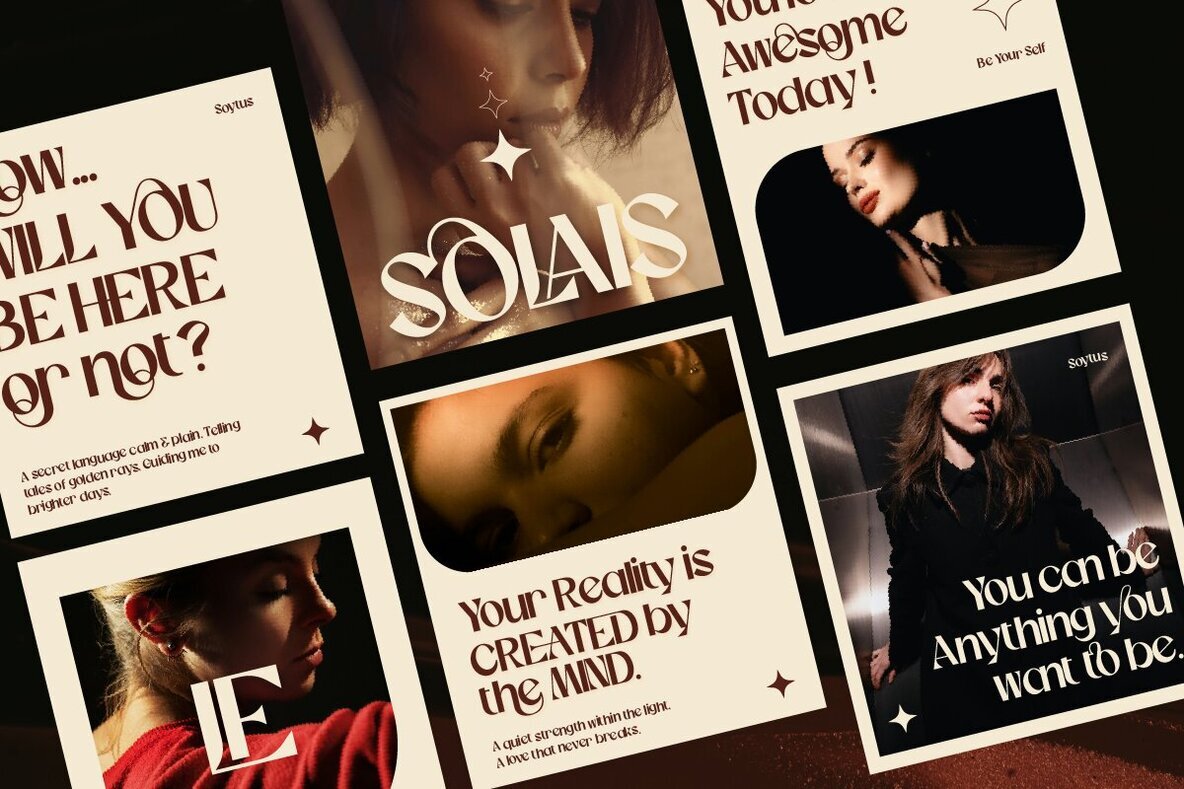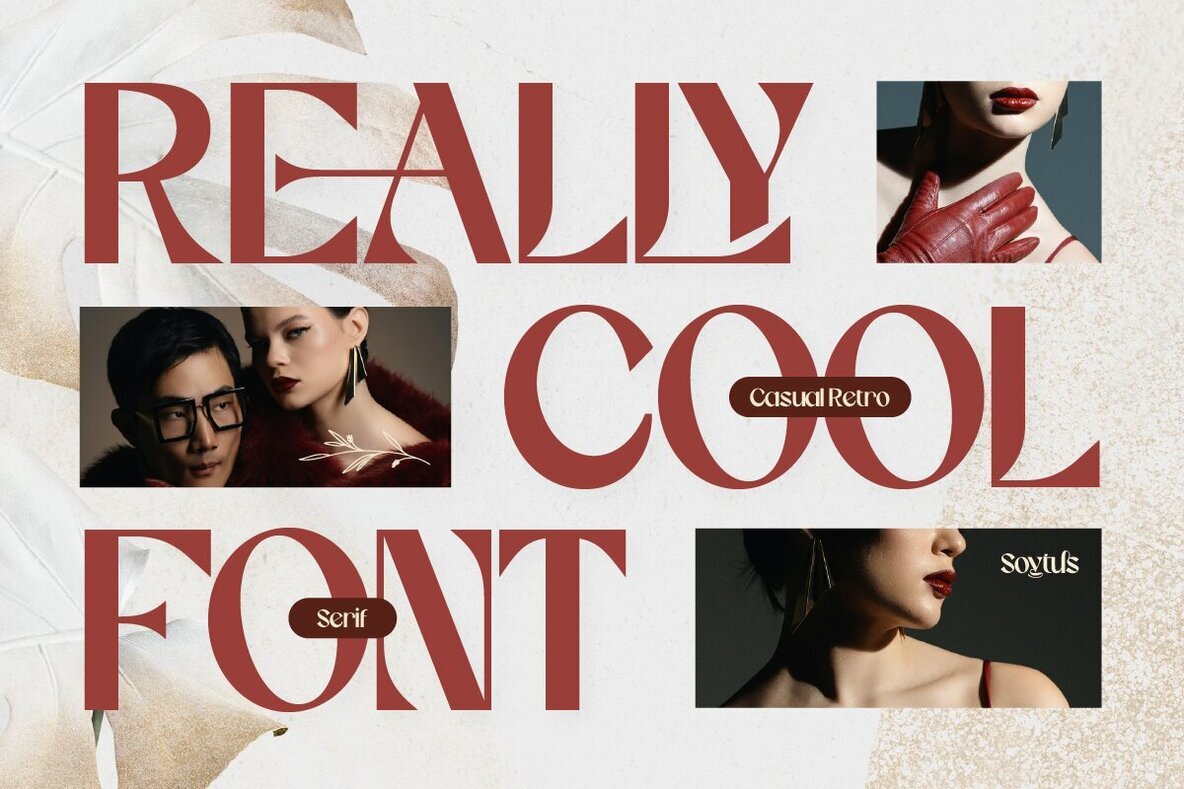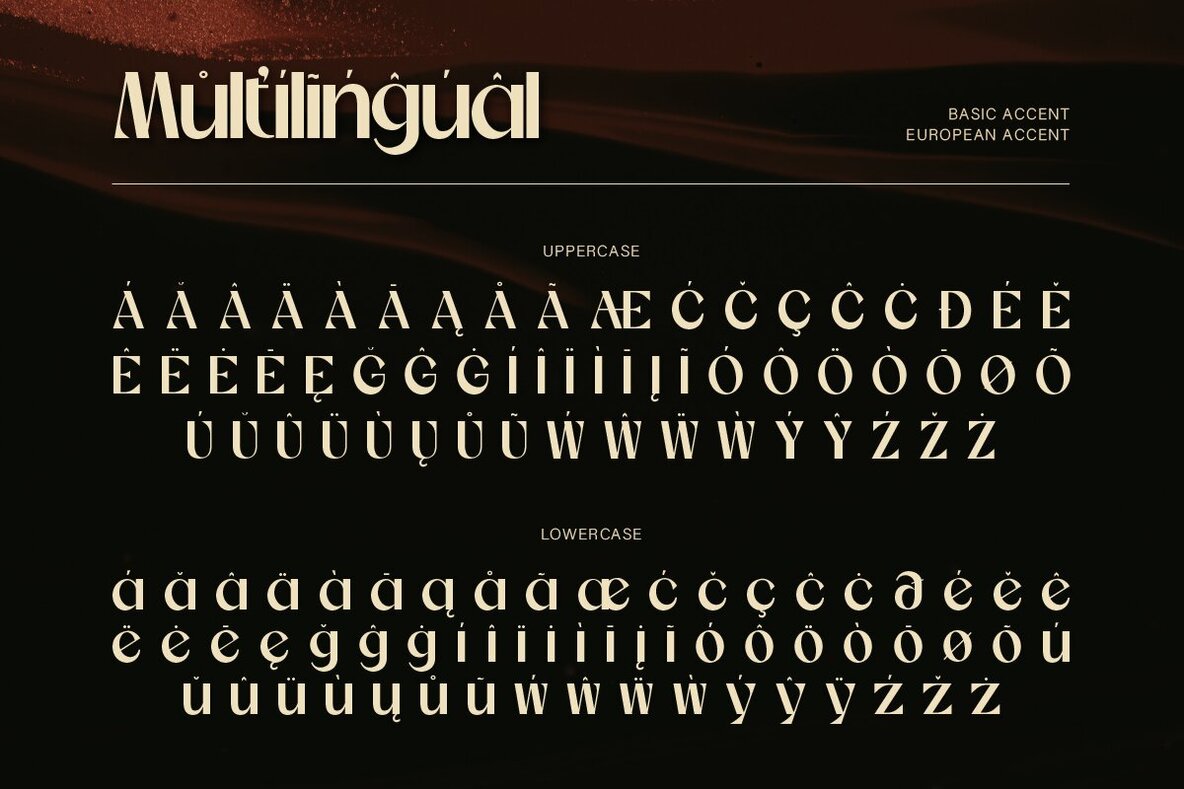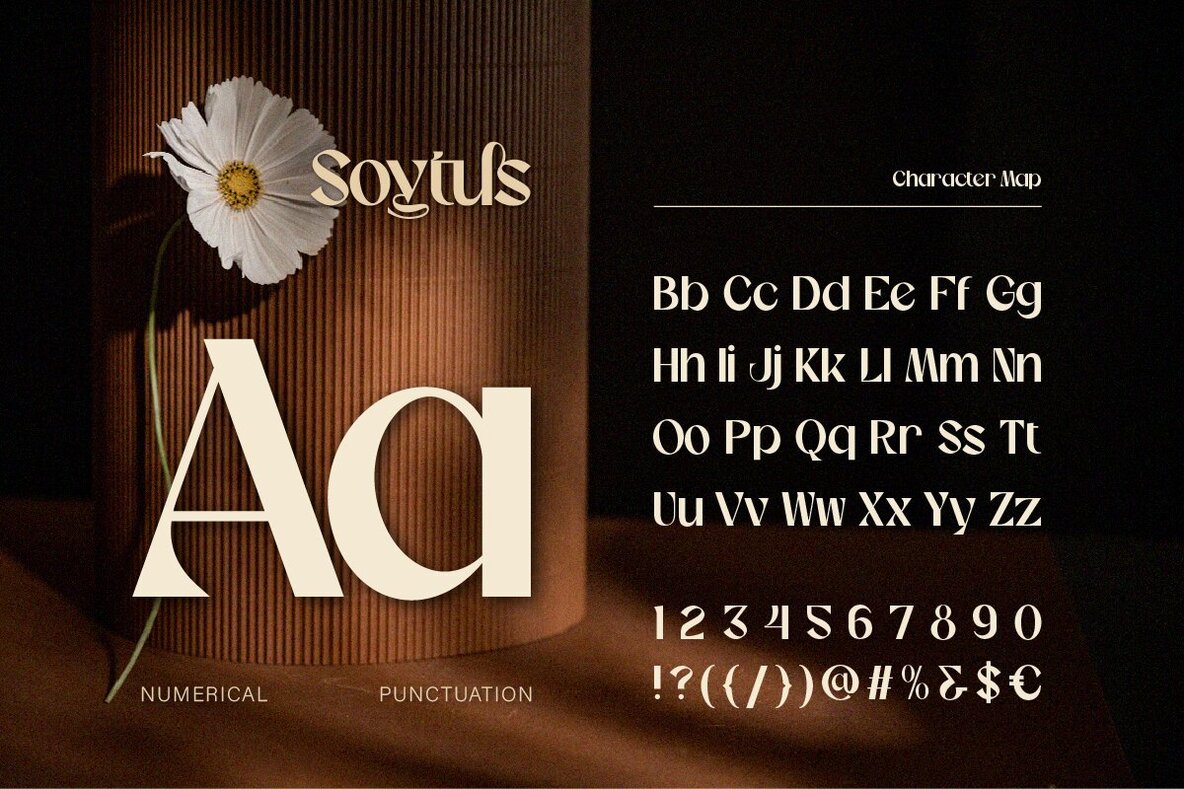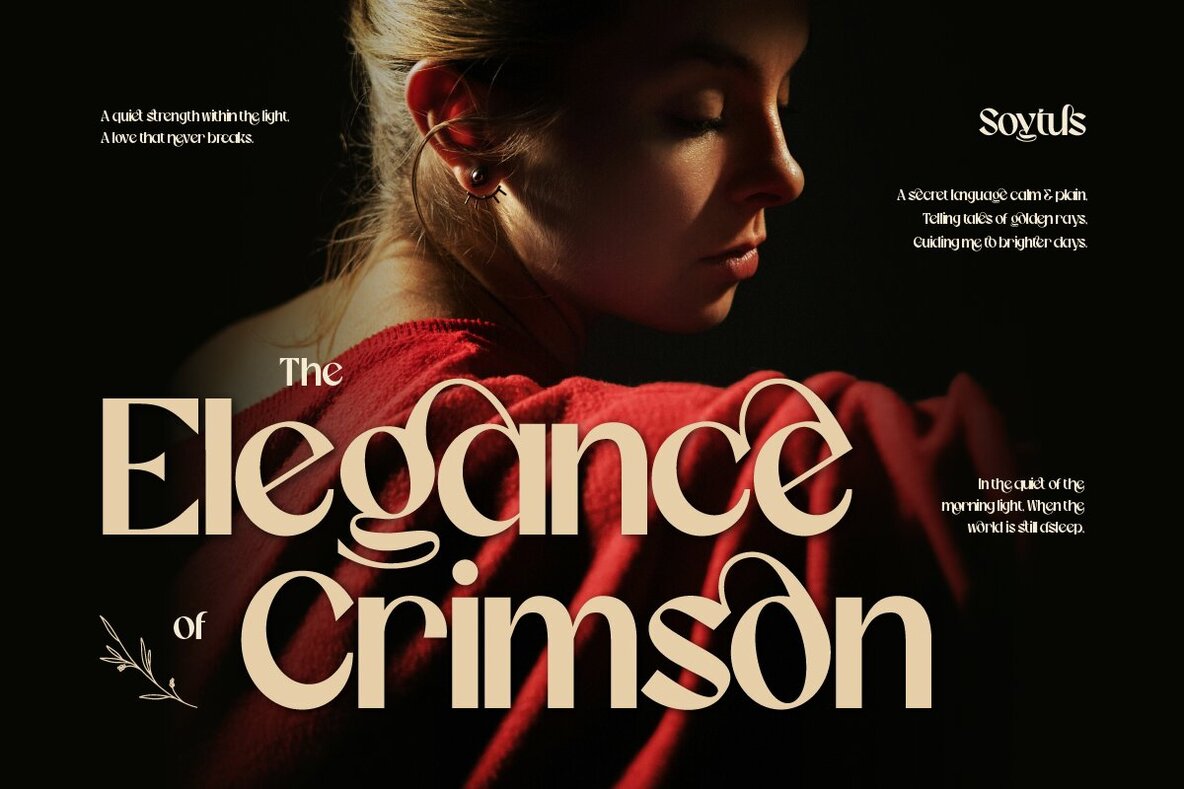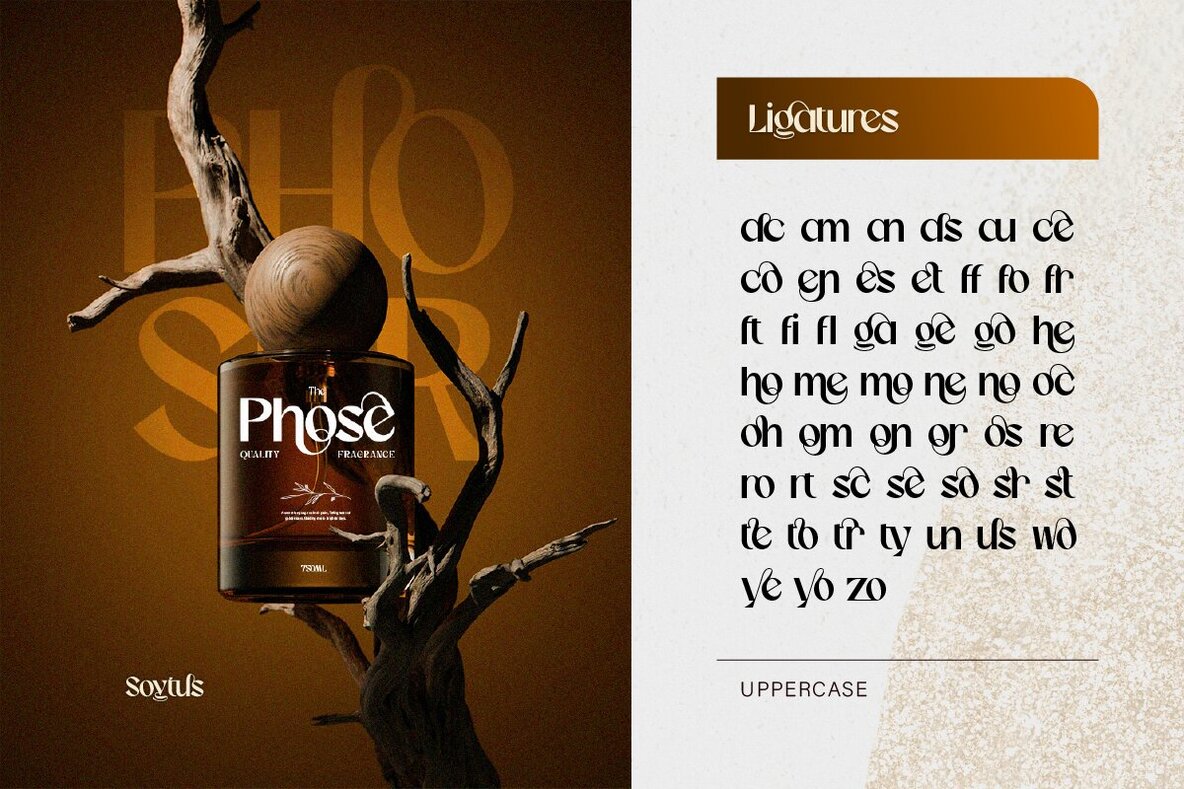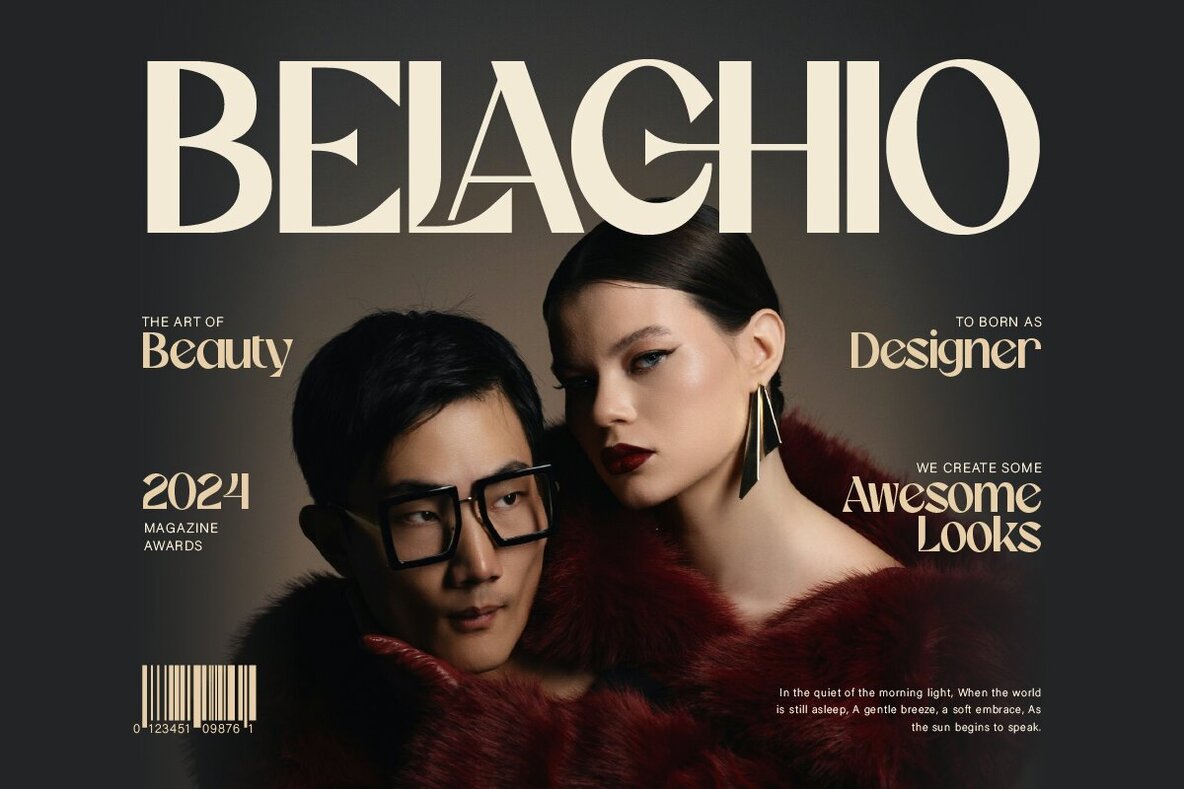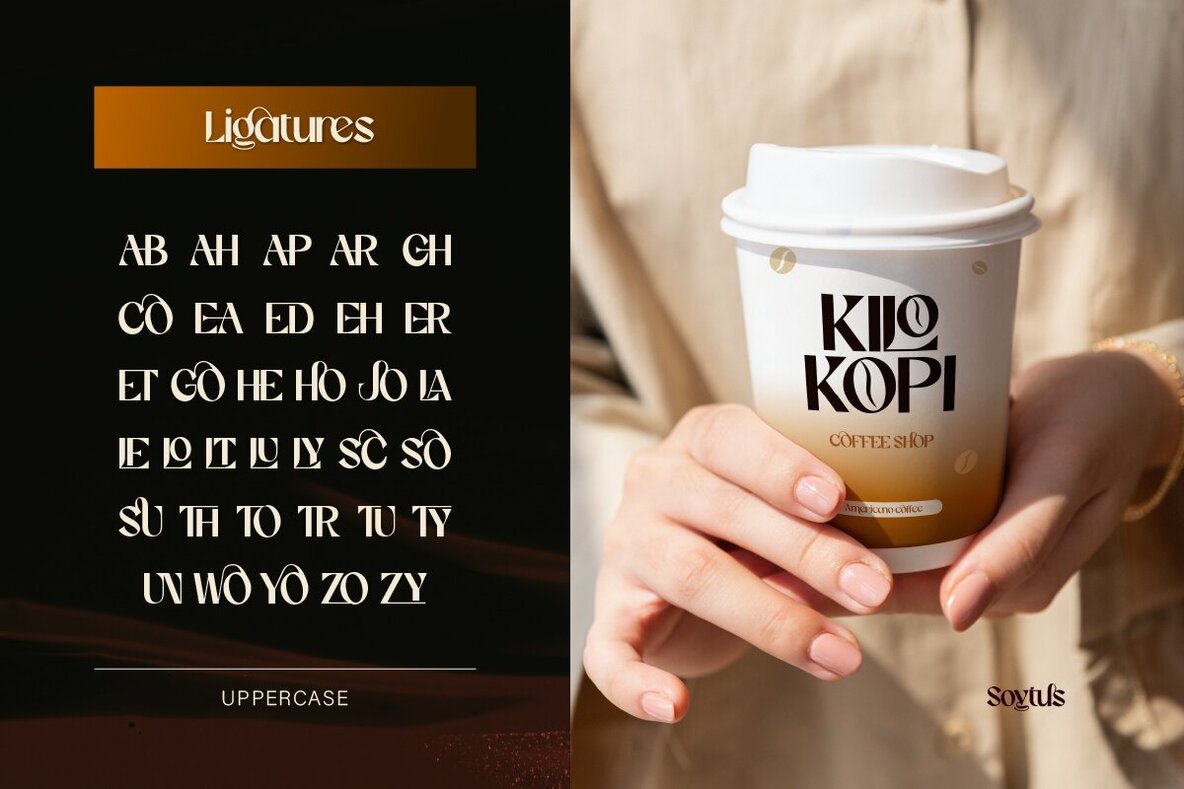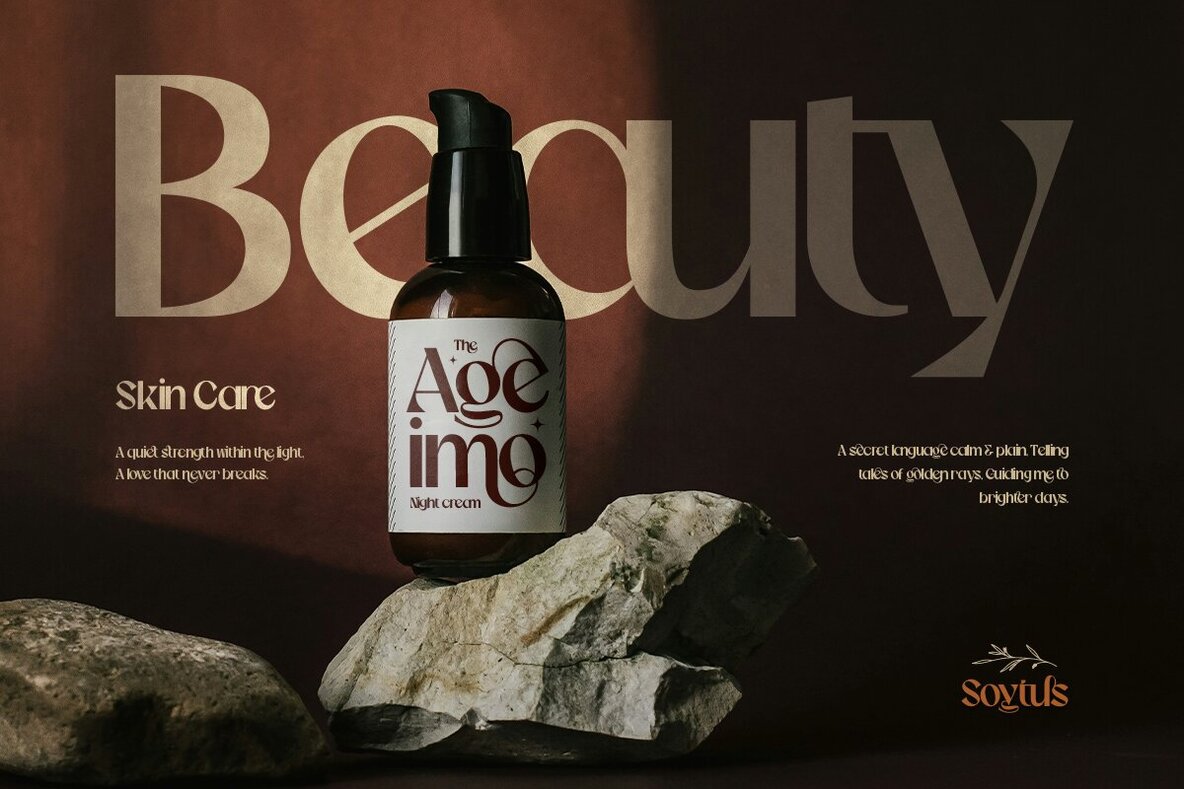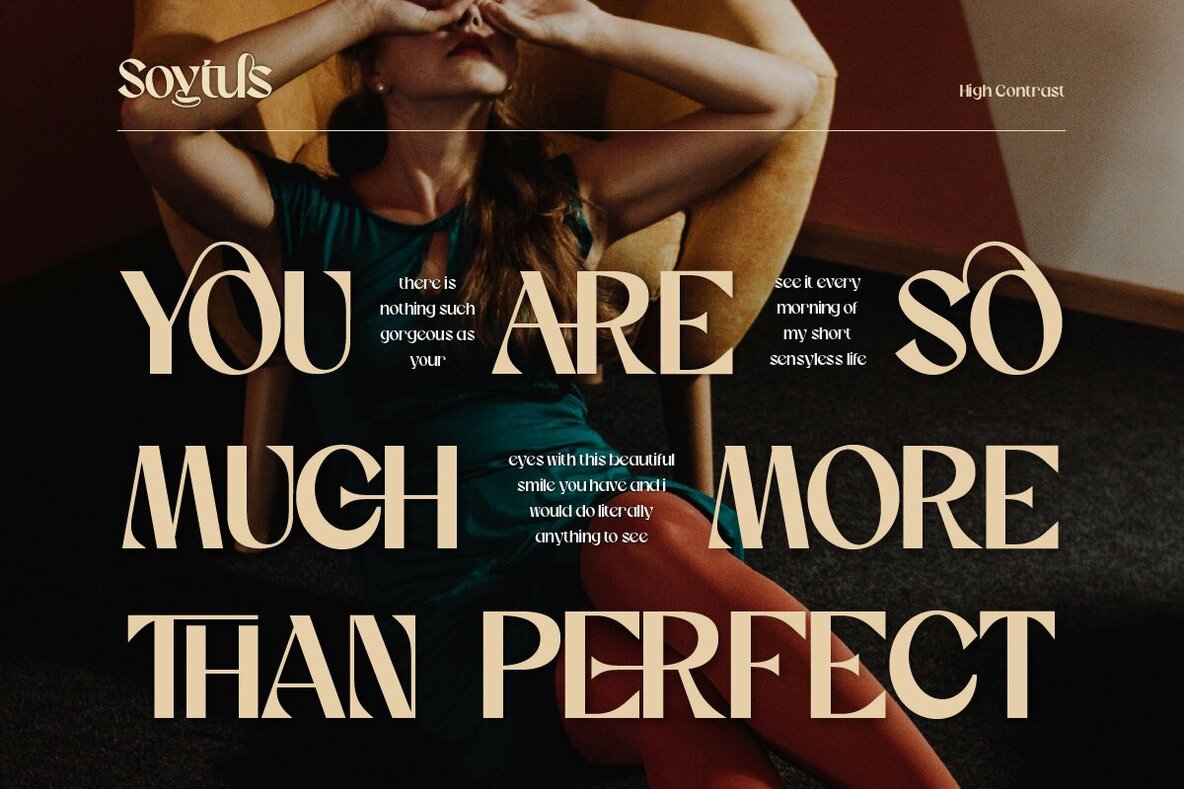
Soytus Font
Soytus
Soytus is a casual retro font that expertly merges classic elegance with modern flair. Its clean lines and subtle curves deliver a stylish, aesthetic appeal, while the thoughtfully crafted ligatures add an extra layer of sophistication. The font supports multiple languages with basic European accents, making it versatile for a range of design needs.
Ideal for branding, logo creation, editorial content, poster and web design, as well as luxury branding and jewelry design, Soytus offers the refined elegance many projects require. Its features include a complete A-Z set in both uppercase and lowercase, numerals, punctuation, alternates, and ligatures, ensuring a comprehensive toolset for designers. Additionally, the multilingual capabilities expand the font's usability across different languages, enhancing its global appeal.